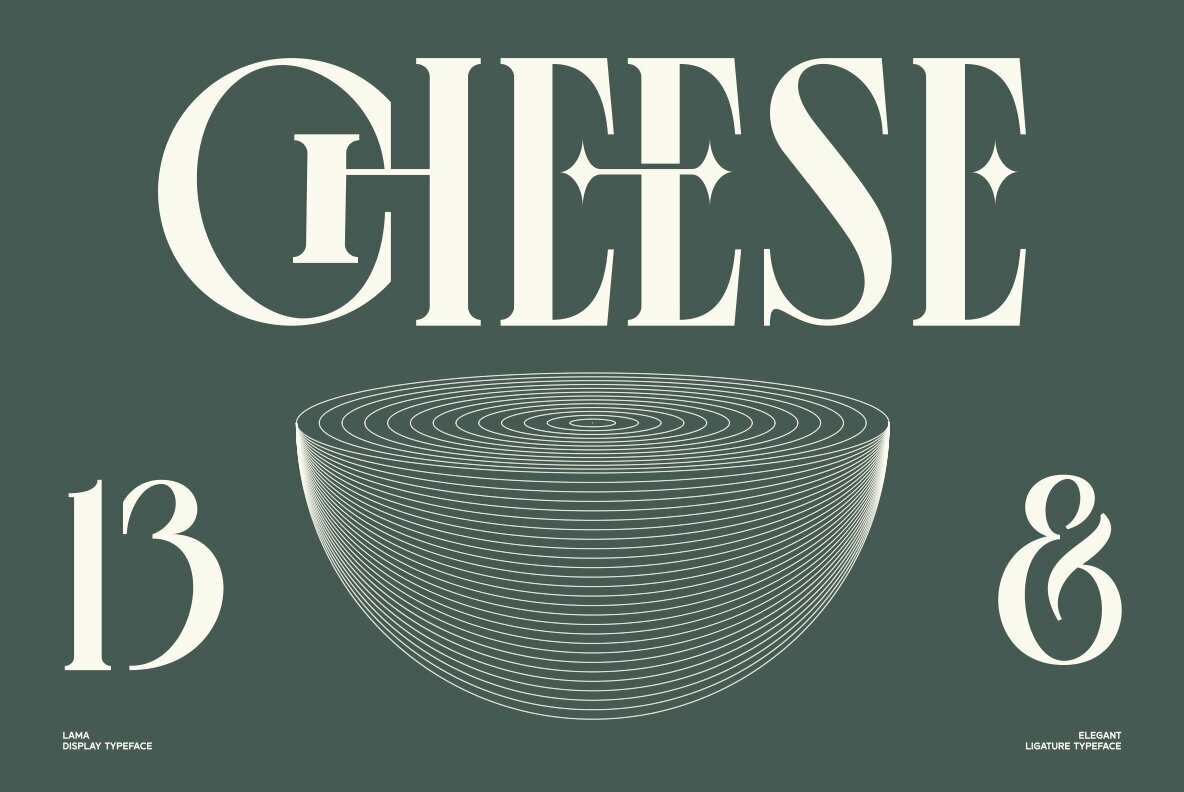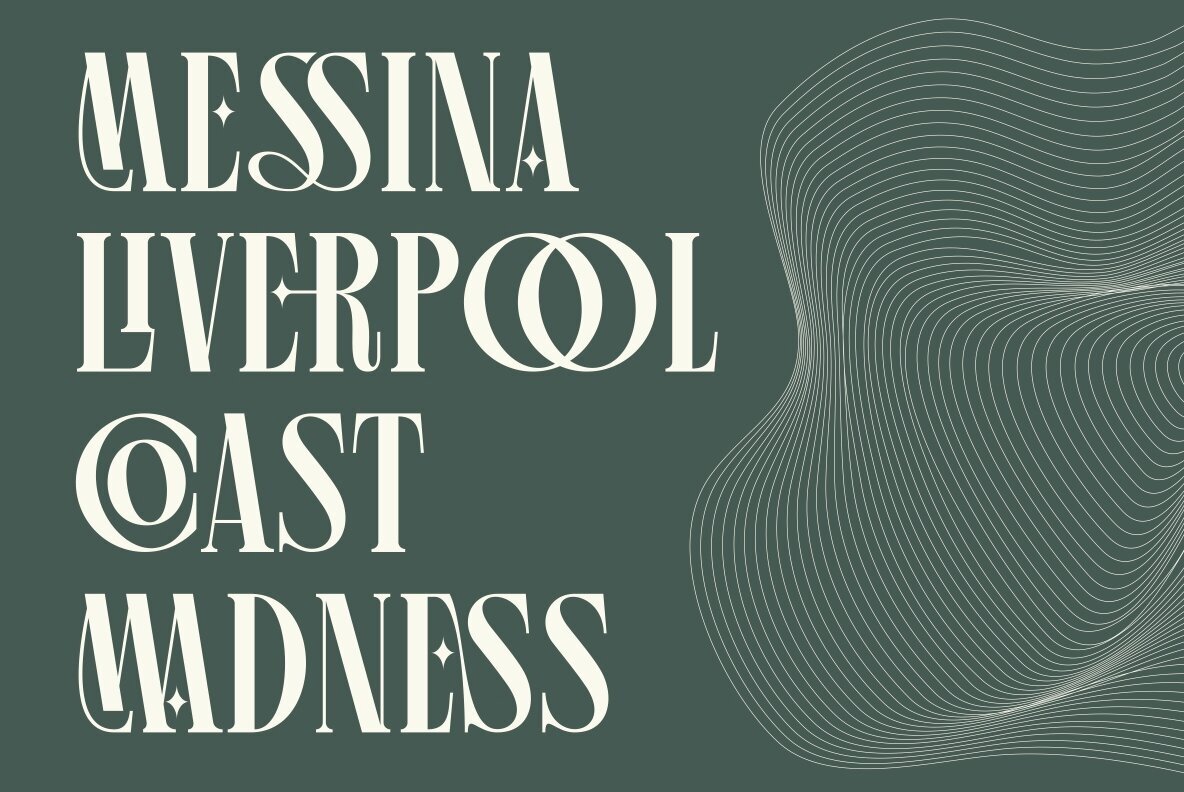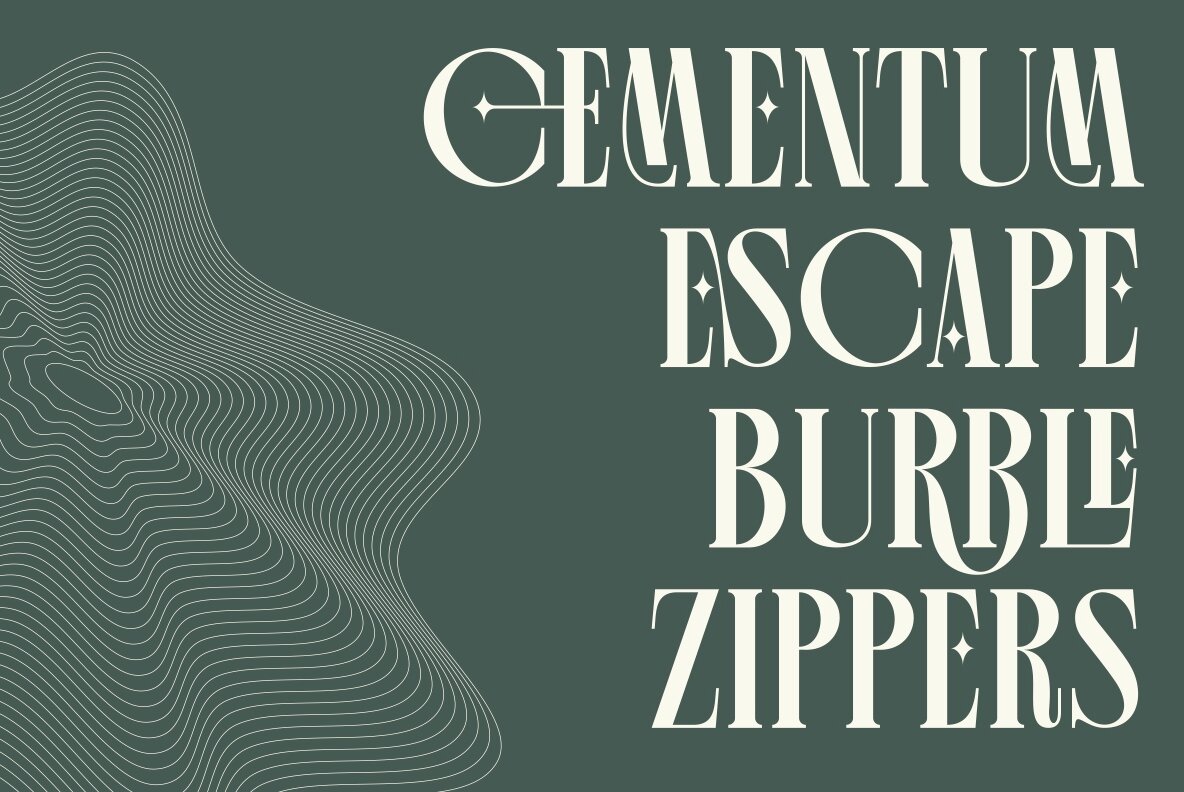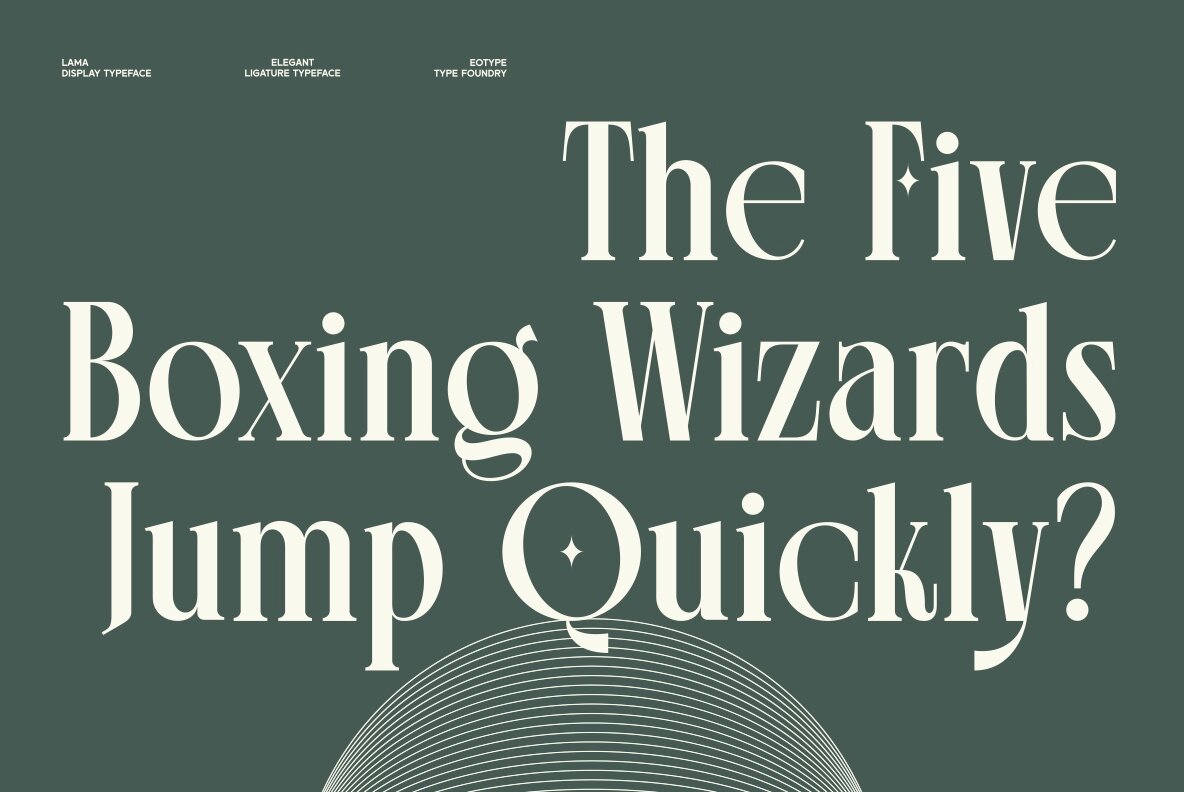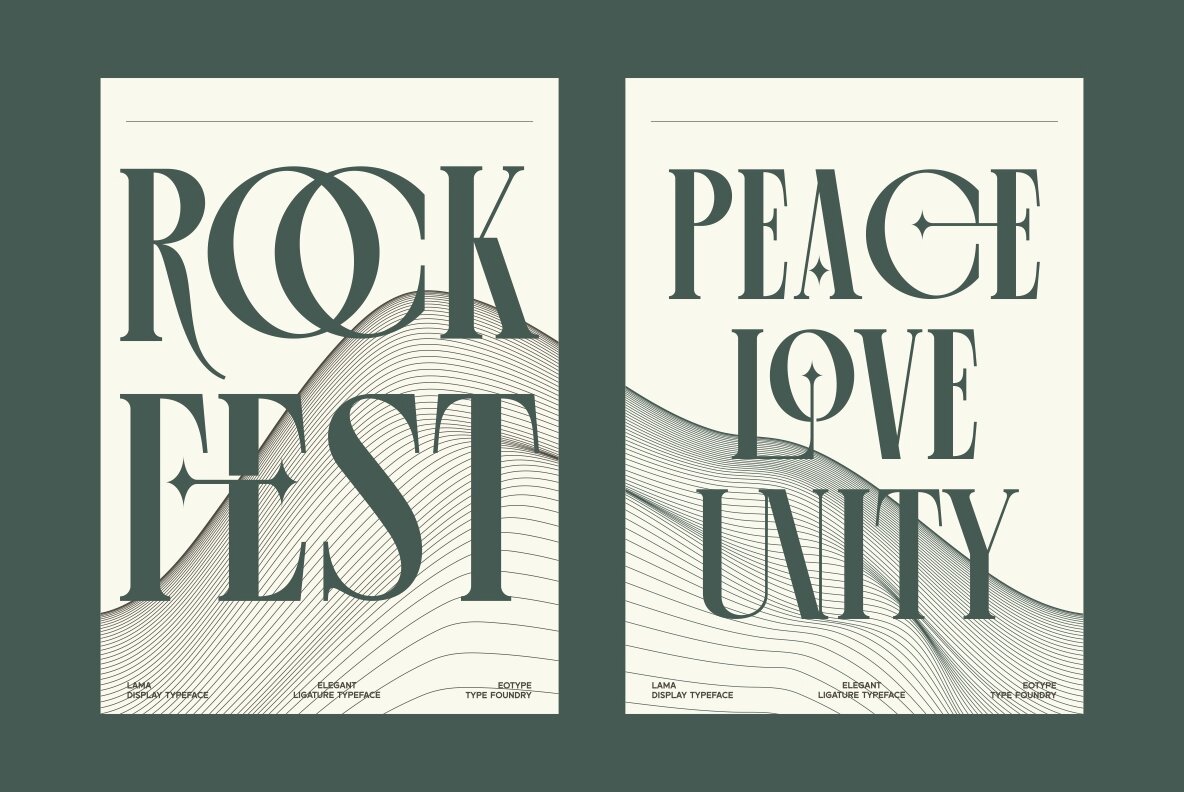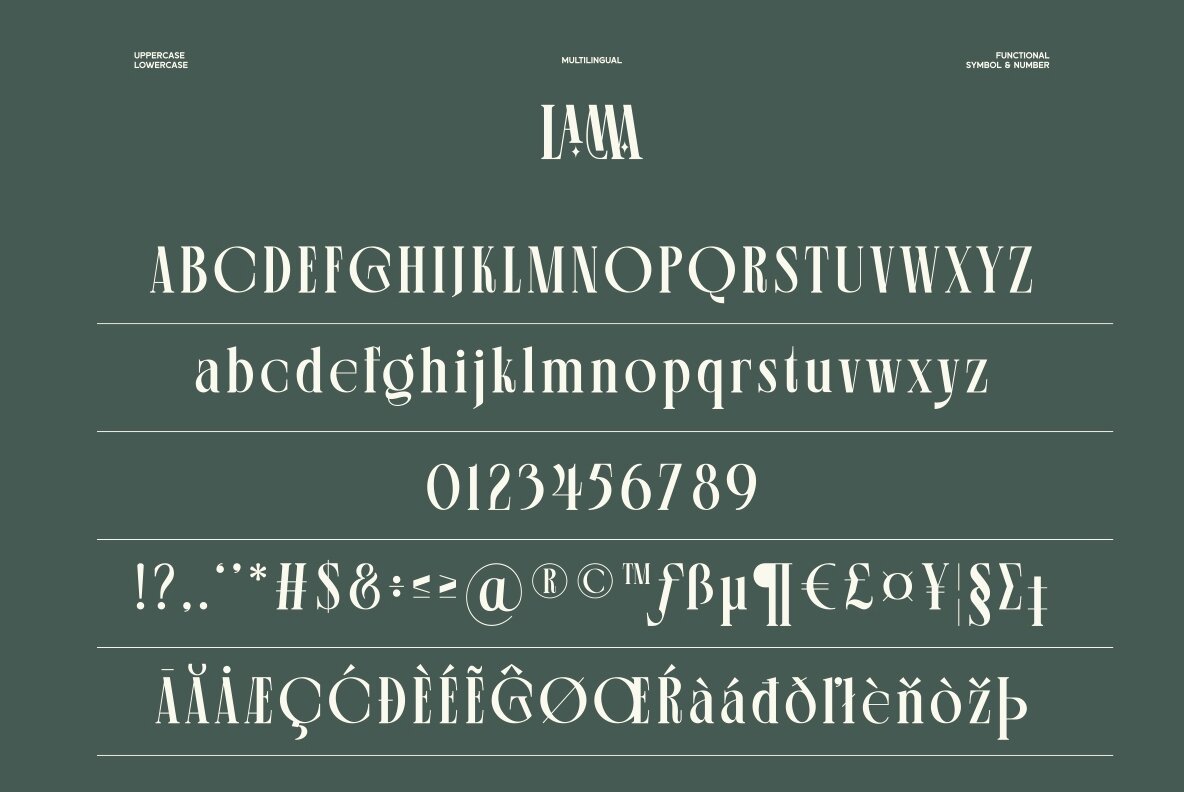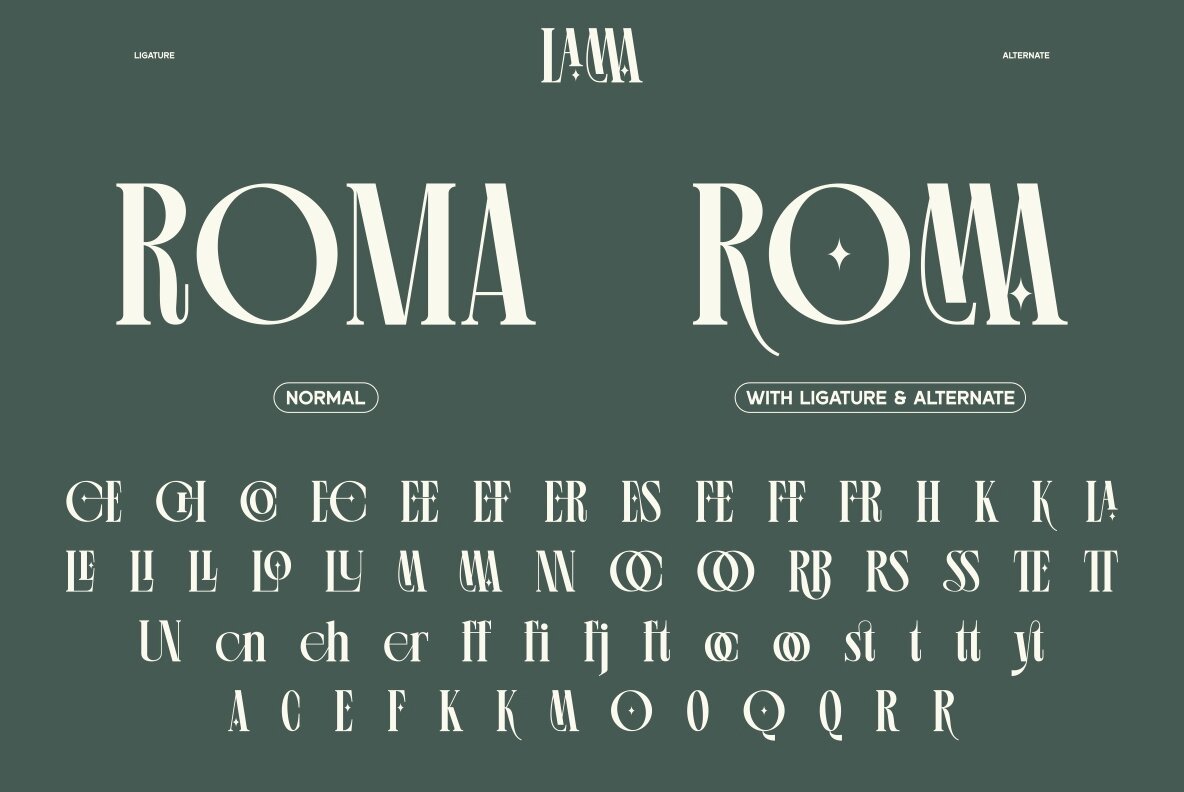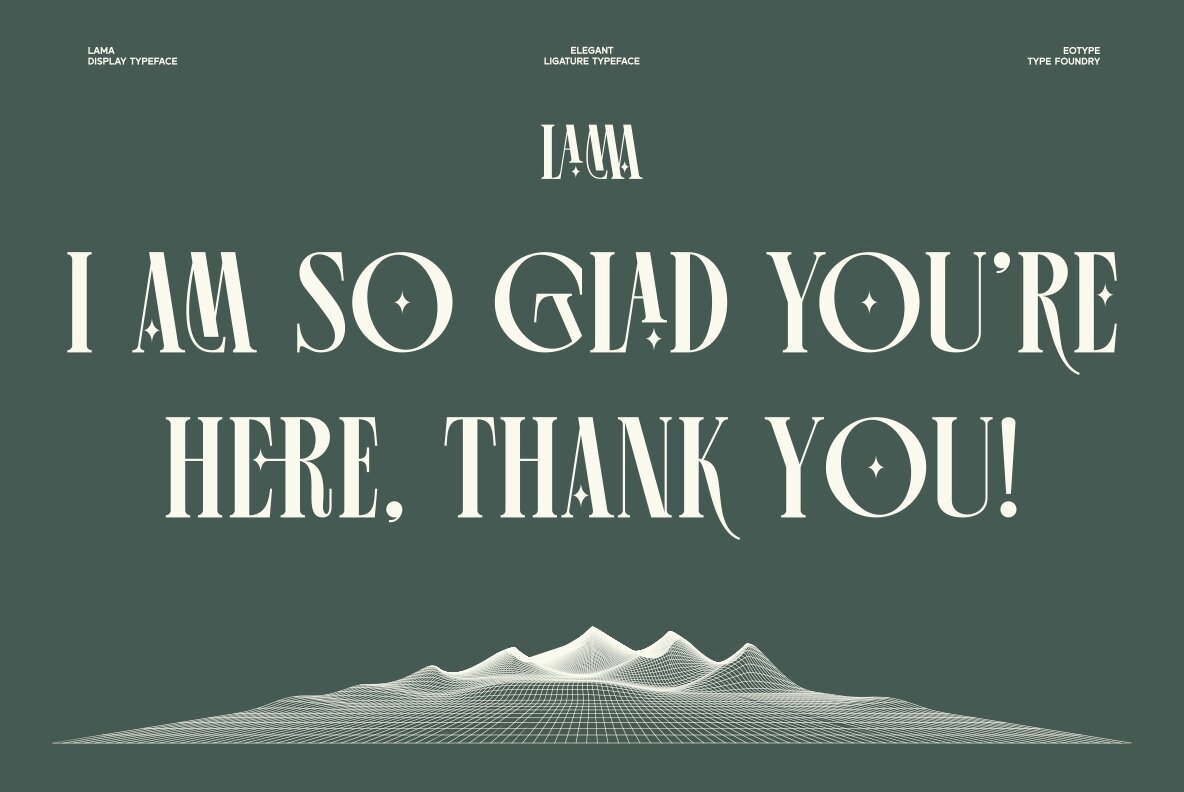
Lama Font
Lama Regular
Lama is a new condensed with stylish ligature serif font that is elegance and versatility. This unique font is perfect for creating beautiful logotypes, stunning magazine designs and more. This font can be your solution in completing projects that are equipped with various alternate and ligature collections.